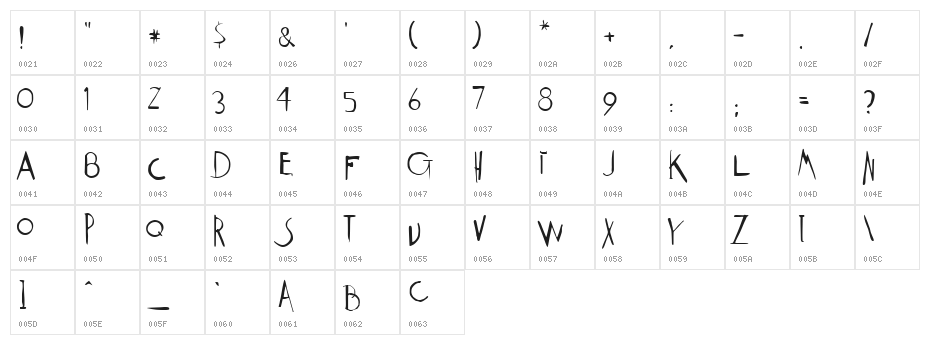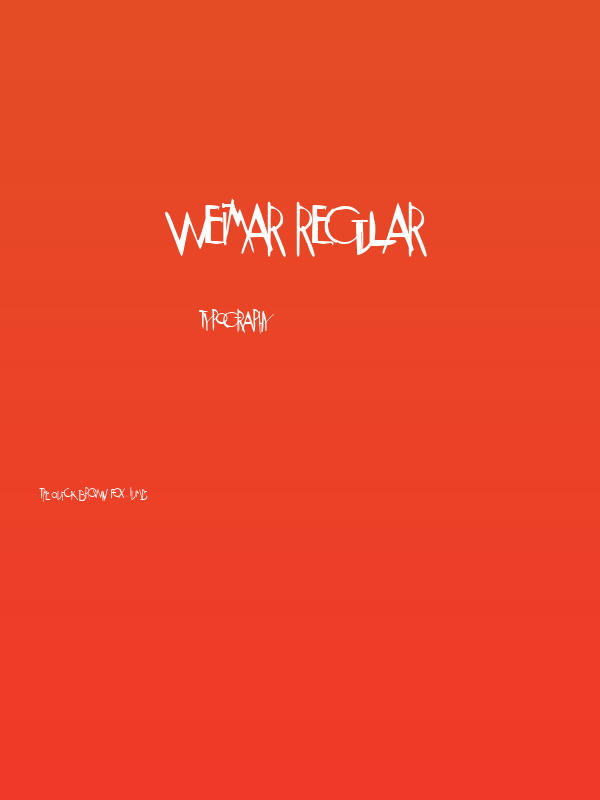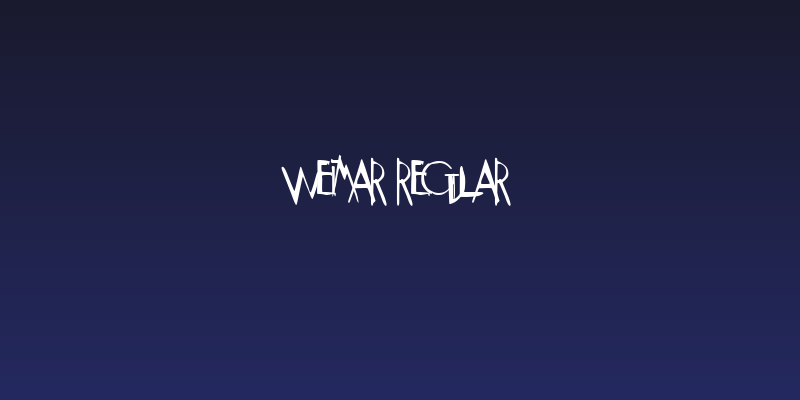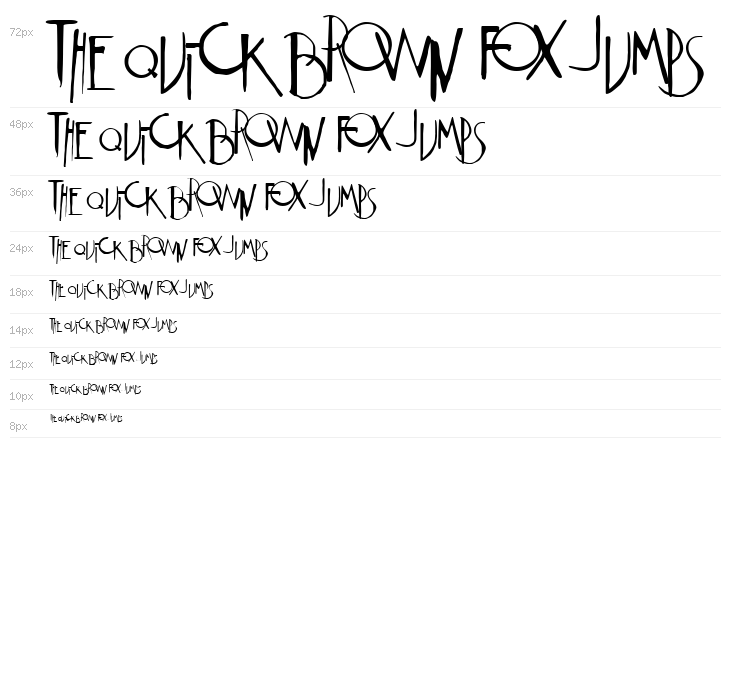
Weimar Regular Font
| Vorgeschlagene Projekte | Ideal for creative projects such as album covers, posters, branding for art galleries, or any design requiring a bold and unconventional aesthetic. |